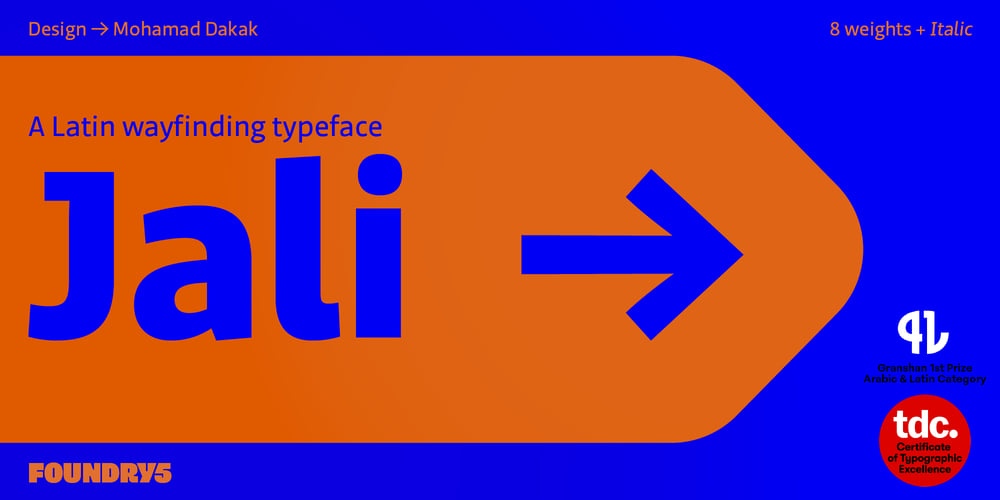
Jali Latin
Jali Latin font
Jali Latin Font Family was designed by Mohamad Dakak and published by Foundry5. Jali Latin contains 17 styles and family package options. Jali is a humanist sans serif typeface ideal for wayfinding, supporting Arabic, Greek, and Latin. ‘Jali’ means clear in Arabic, its design embodies this with low-contrast strokes, distinct marks, and a warm, readable style. Jali excels in demanding typographic spaces.Awards: TDC Certificate in Typographic Excellence, Granshan’s 1st Prize, Arabic & Latin Category, 2019.